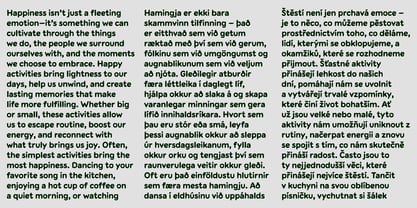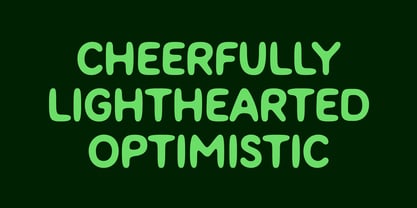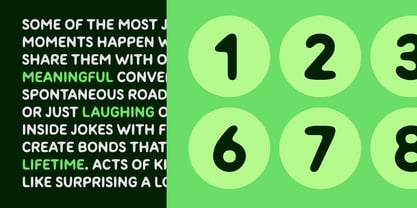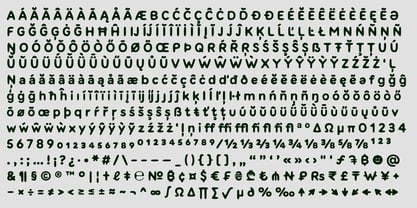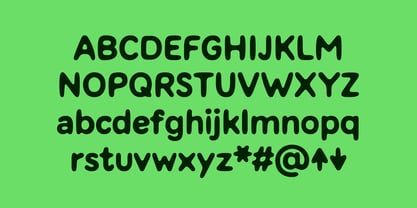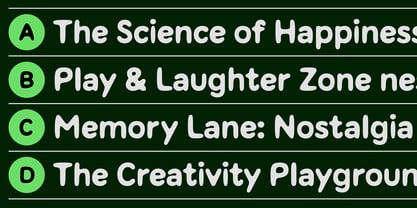
Kotik
by Inhouse Type
The Kotik Font Family was designed by Mariya Lish and published by Inhouse Type. Kotik contains 1 styles. More about this family
Kotik is a handmade sans with a bold personality—created for both text and display. It’s authentic yet modern, offering a fresh, playful twist on the classic sans aesthetic.
Designed for the digital age, Kotik thrives in social media, branding, and beyond—striking the perfect balance between character and versatility. If you’re drawn to the clean appeal of Helvetica but want something with a little more charm, Kotik is ready to play.